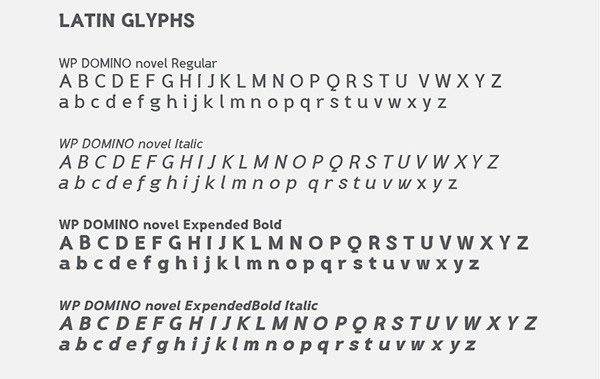
Free Font Of The Day #124 – WP DOMINO Novel Font
WP DOMINO Novel Font
This font inspired by the DOMINO book.You can use it both for your personal and commercial projects.